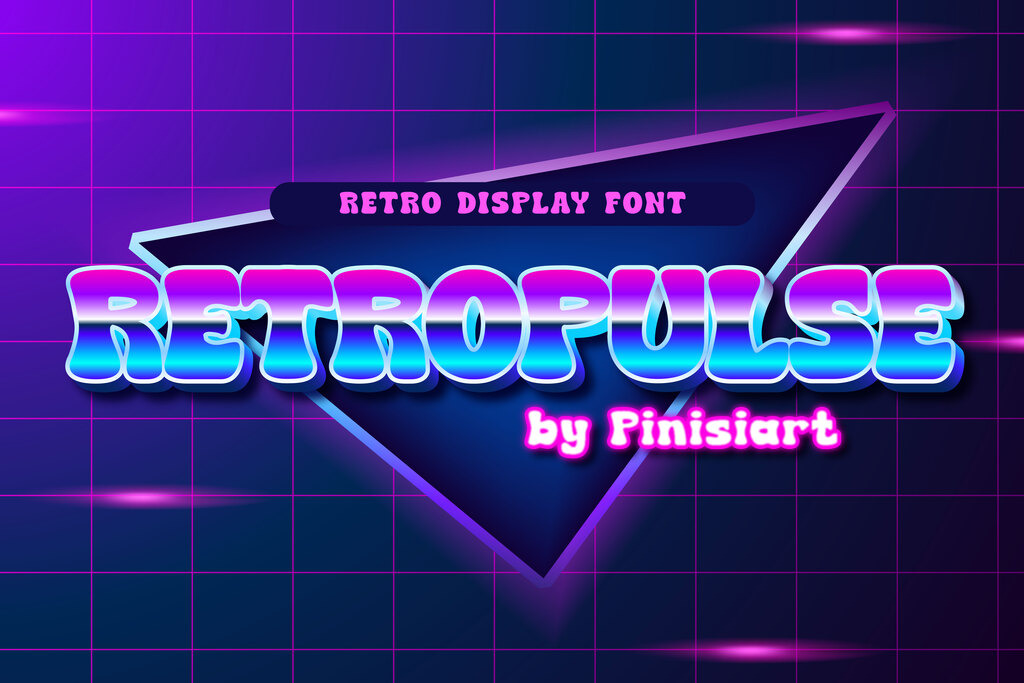
RETROPULSE – Retro Display Font
Feel the pulse that runs through your vein, with that disco beat pounding in your ears.
Suit perfectly for retro themes books market, music album covers, stationary, groove party invitation, poster, youtube covers, youtube thumbnails, social media page covers, and so on…